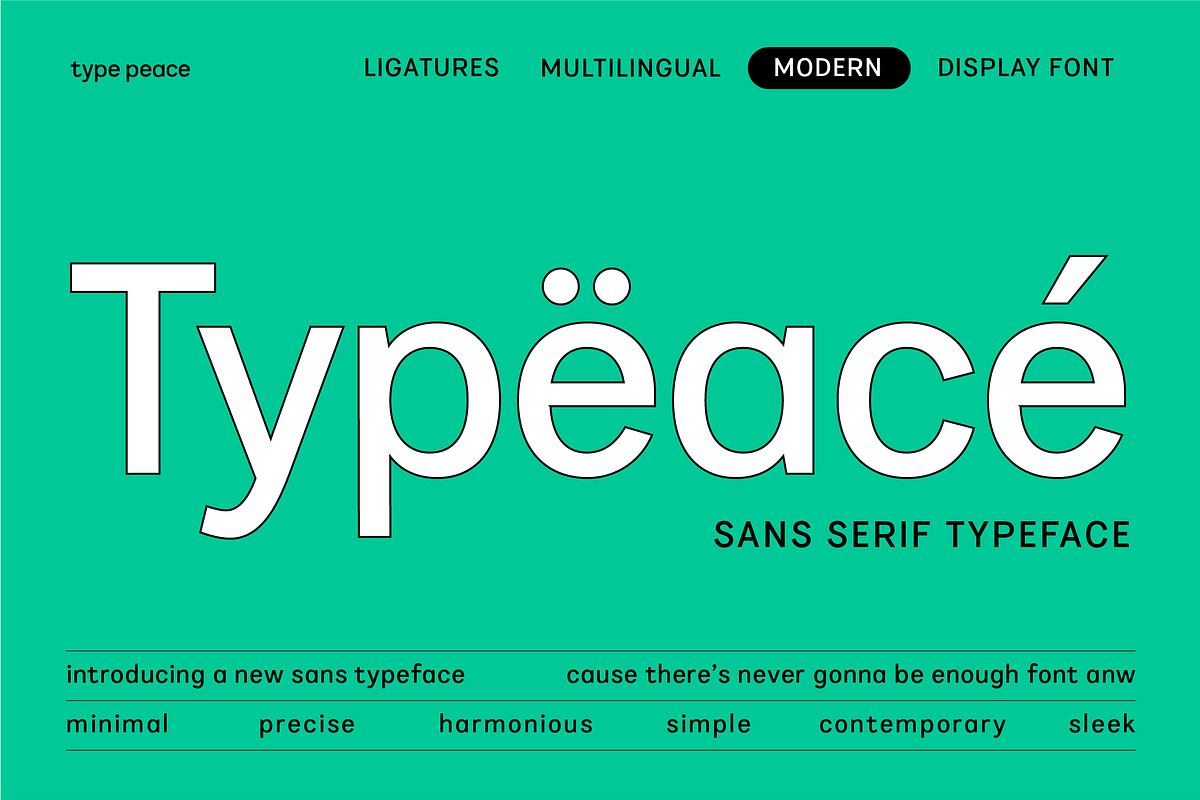
Typeace Sans Serif Typeface Free Download is a clean, modern typeface that combines simplicity with sophistication. With its sharp edges, balanced letterforms, and elegant proportions, this font is perfect for corporate branding, editorial design, websites, logos, and advertising materials.
Designed with legibility and versatility in mind, Typeace works seamlessly across both digital and print formats. Its neutral yet contemporary style makes it ideal for professional use, providing a polished, minimalist aesthetic without compromising on character.
Whether you're building a brand identity or designing sleek promotional content, Typeace Sans Serif Typeface Free Download adds clarity and modernity to your projects.